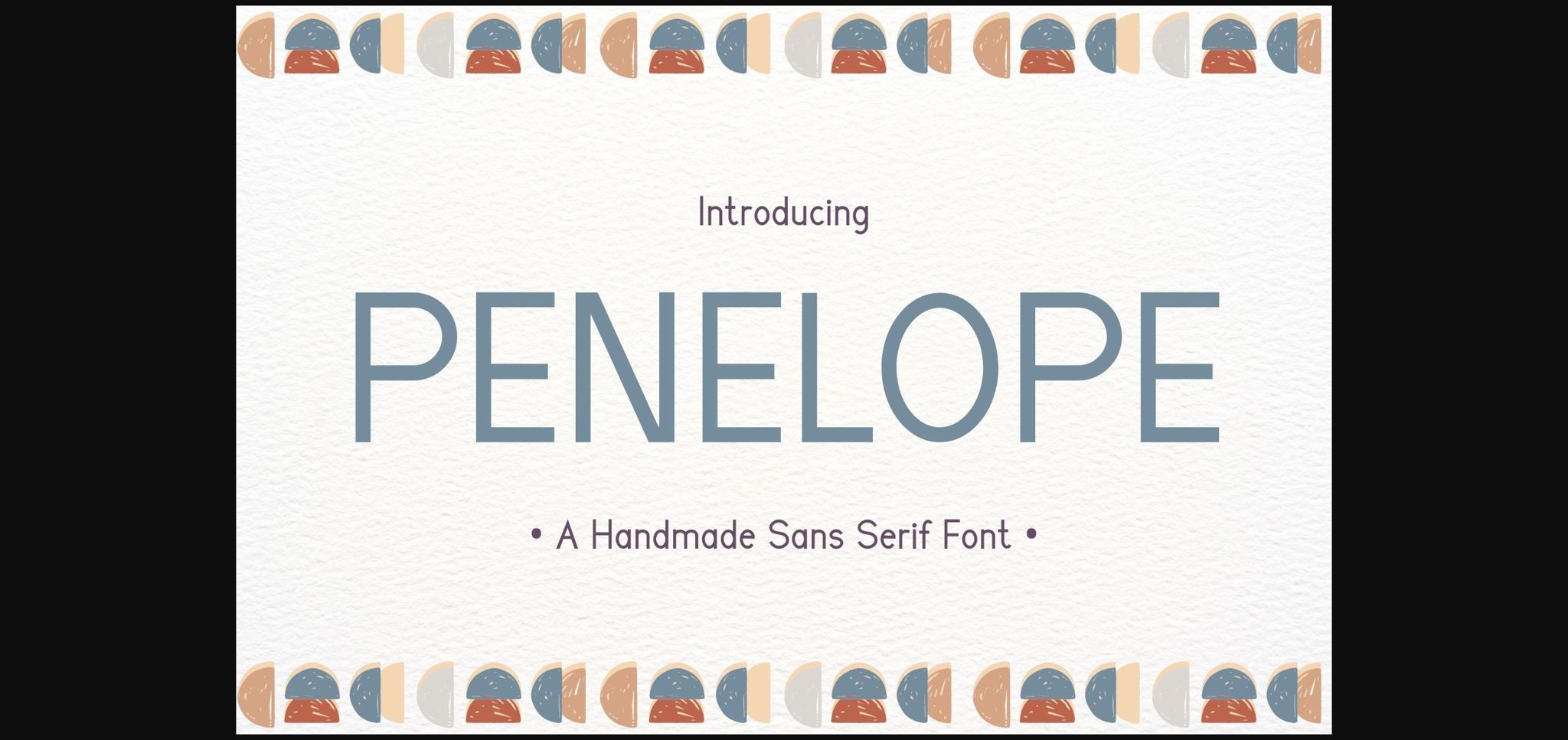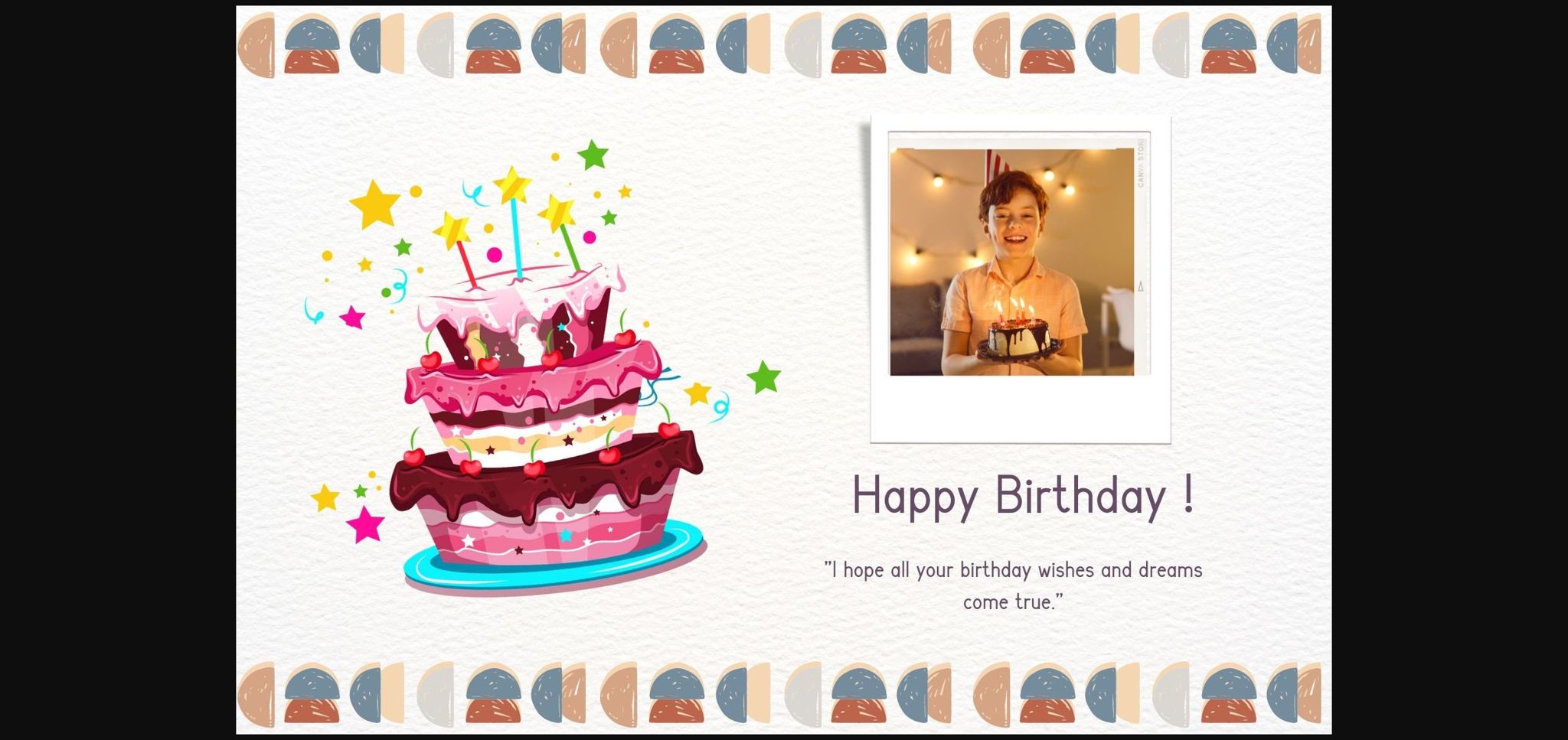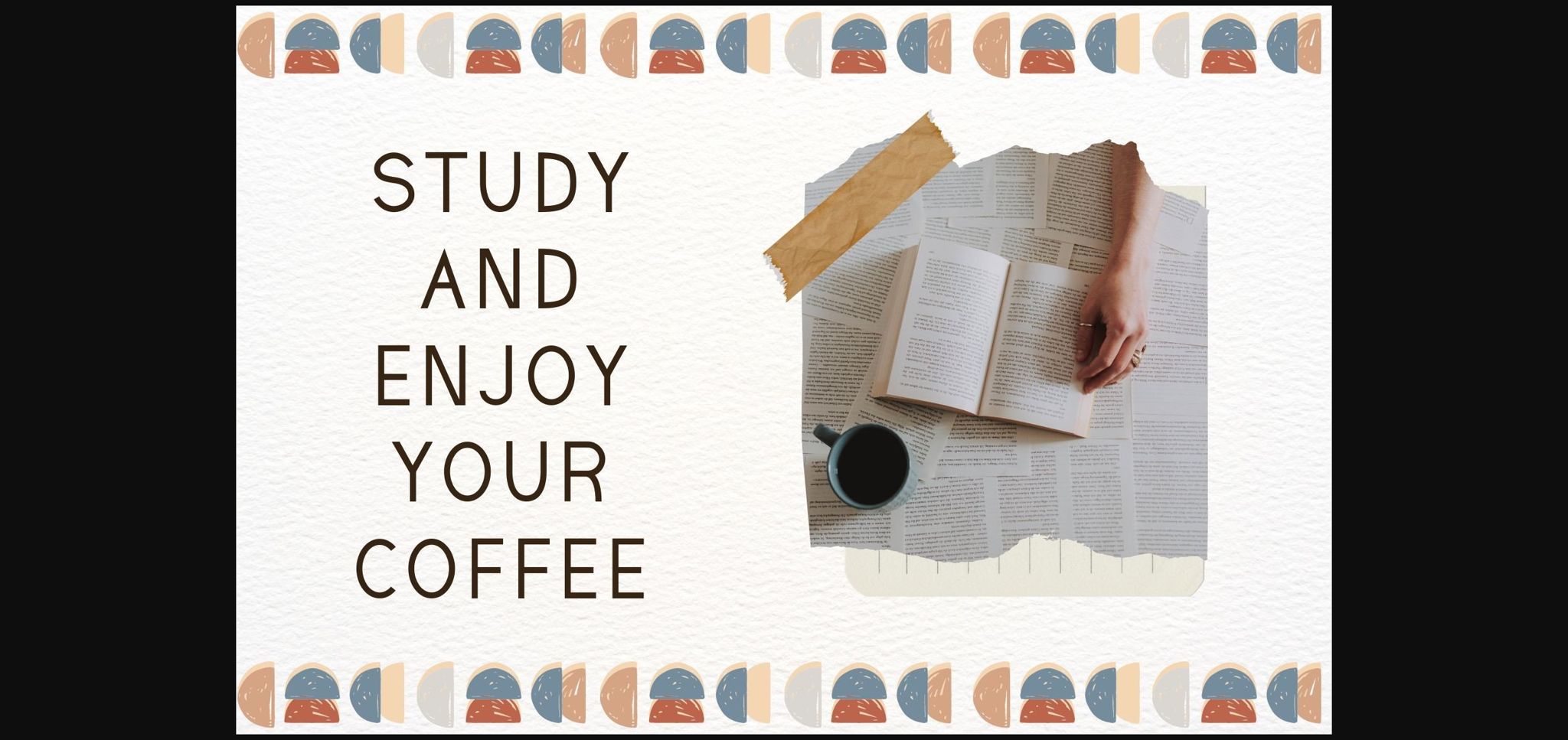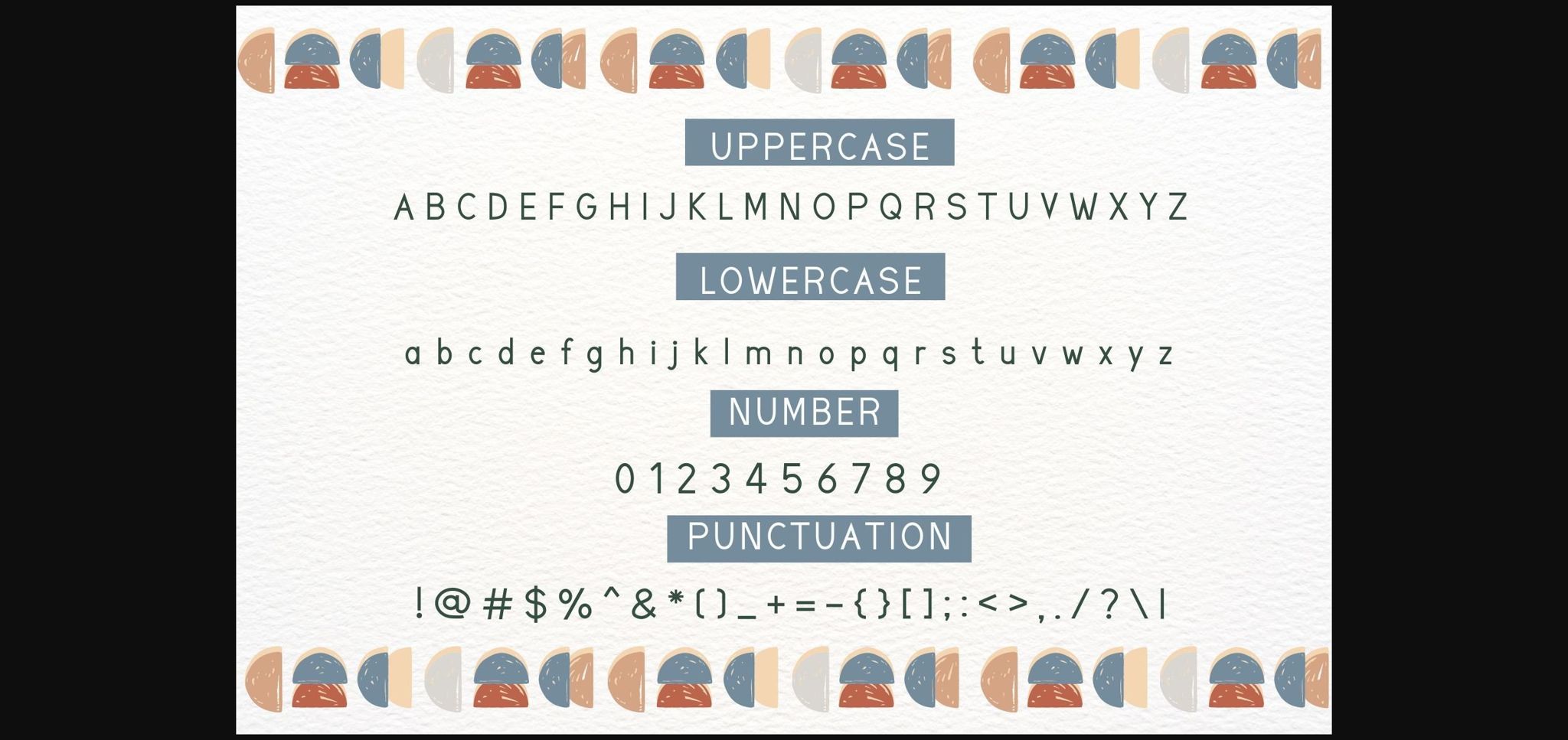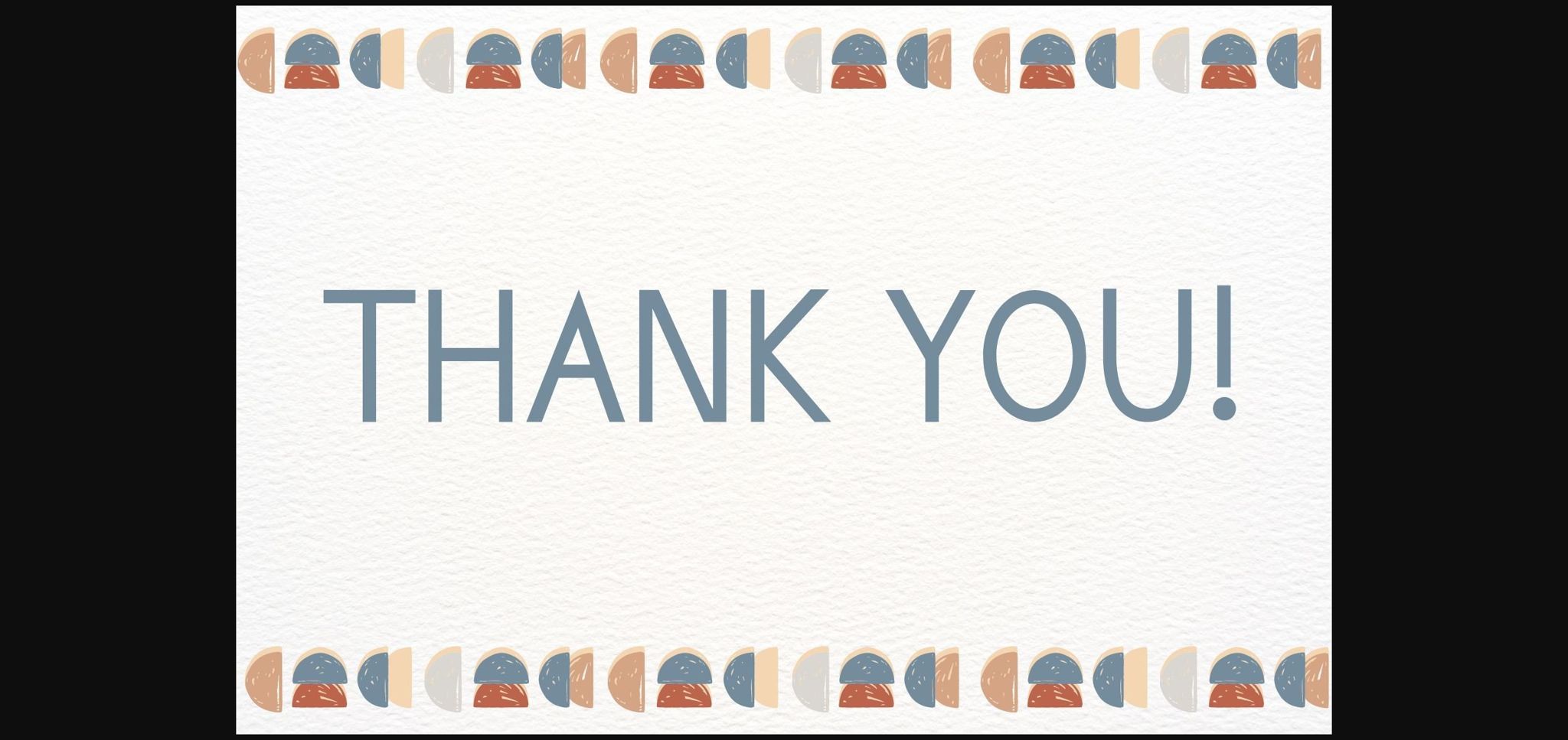
Penelope Font
About Penelope Font
Penelope is a cute and modern Sans Serif font. The lightness of its characters makes it suitable for a wide range of design projects. It embodies playfulness and authenticity and is the perfect choice for all your favorite projects, or even for blog posts, logos, branding, ads, invitations, greeting cards, planners, photo albums, decorations, and much more. Add it to any of your designs, and enjoy the results!